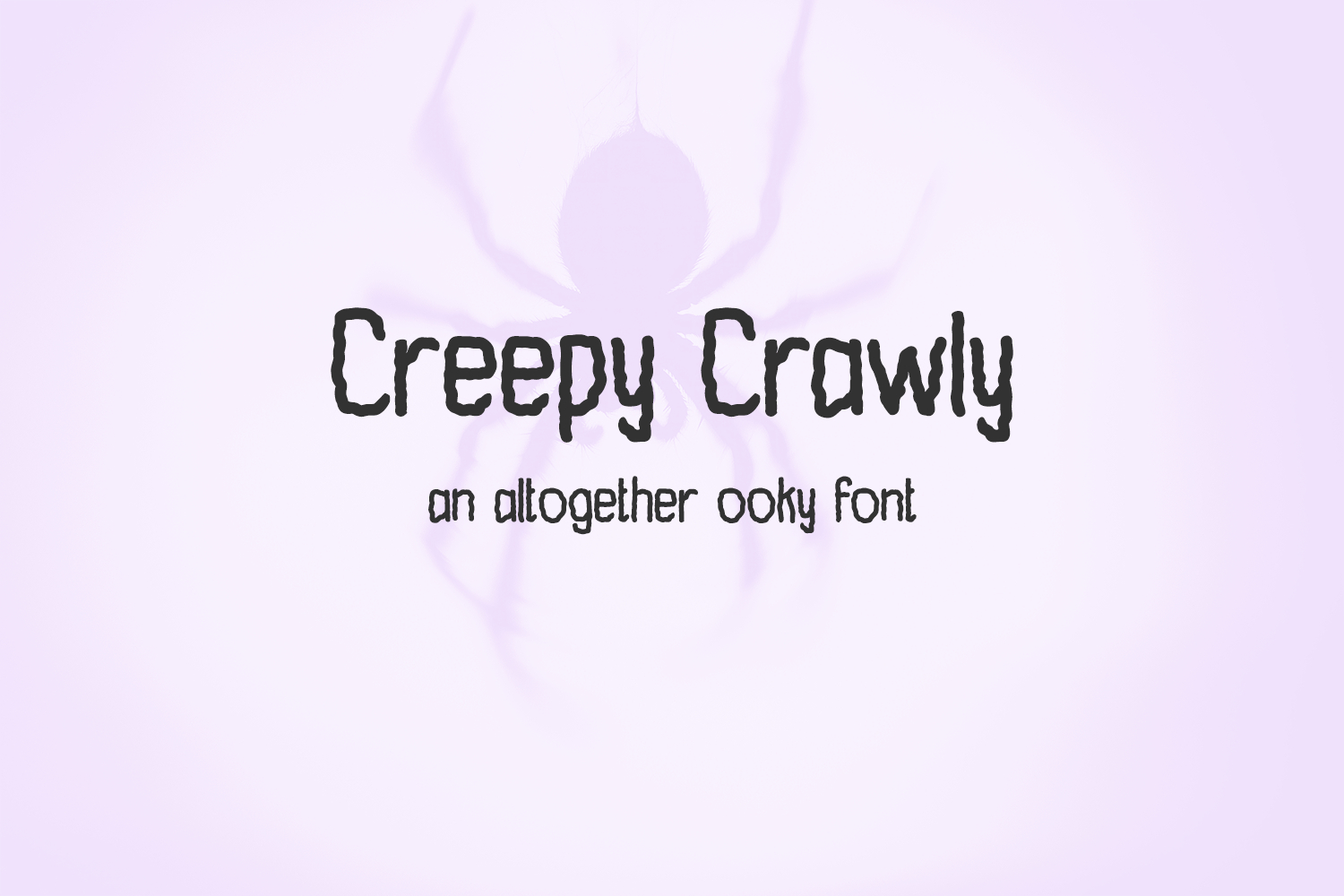
Creepy Crawly Display Font
Meet Creepy Crawly, a wiggly, wormy Halloween sans font. Neat & legible and slightly cute, this font is quite versatile! Use this quirky font for Halloween shirts, stickers, mugs, doormats, trucker hats, signs, logos, and other spooky craft projects featuring spiders, creepy crawlies, or playful Halloween imagery.
Creepy Crawly Sans